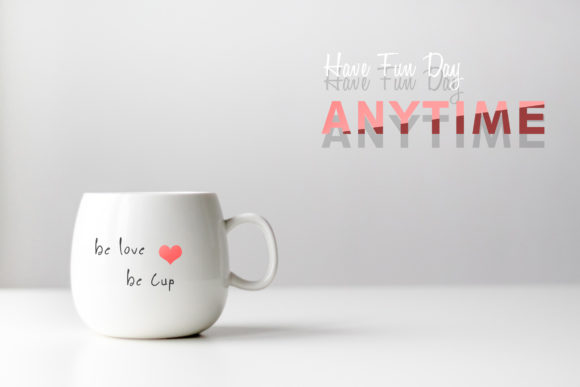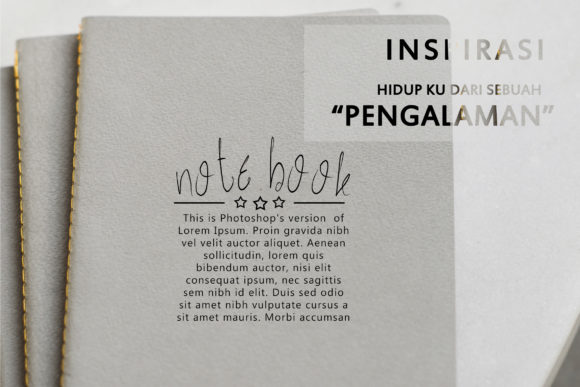
Cuit Font
About Cuit Font
Cuit is a modern and simple handwritten font with a casual vibe. Make use of this casual signature script in any design project that requires a smart feel!